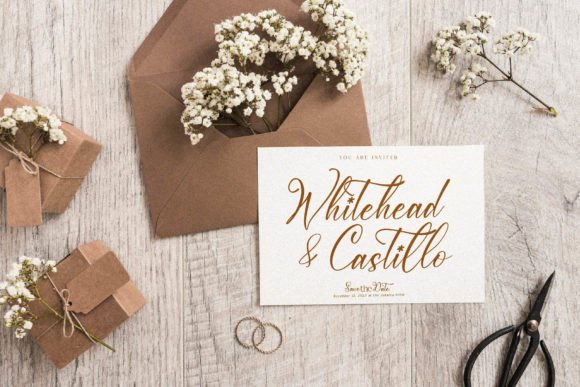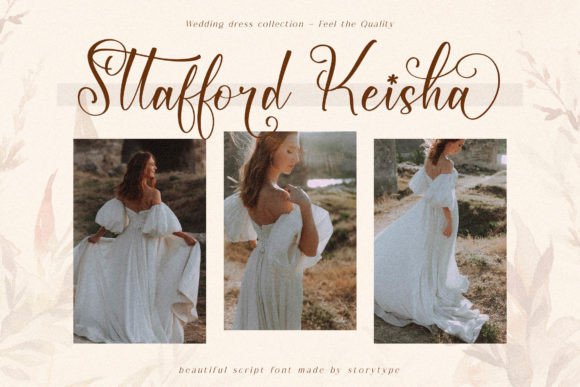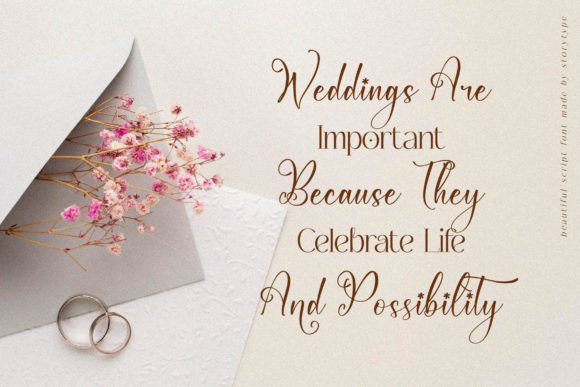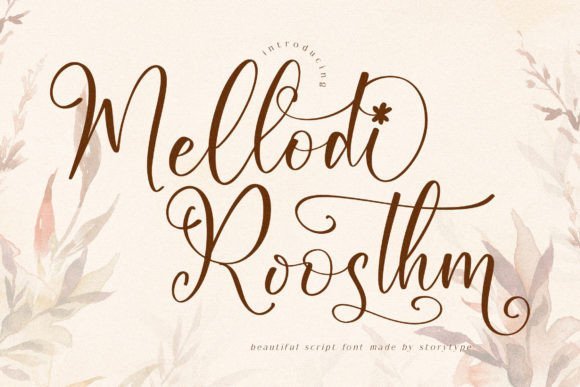
Introduction to Mellodi Roosthm Font
Mellodi Roosthm is a dazzling script font.
This font is neatly crafted and highly detailed Whatever the topic, this font will be a wonderful asset to your font library, as it has the potential to enhance any creation.
Key Features of Mellodi Roosthm Font
Why Choose Mellodi Roosthm Font?
Mellodi Roosthm Font offers exceptional quality and versatility, making it a valuable addition to your design toolkit. Whether you’re creating for personal projects or commercial use, Mellodi Roosthm Font delivers professional results.